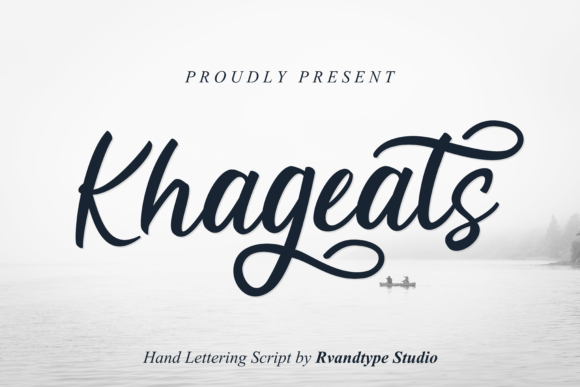
Behold Khageats, the script font that will ignite your creativity and captivate your audience. Its charming and unique style adds a touch of elegance and personality to any design project. With Khageats, you'll have the power to transform ordinary designs into extraordinary masterpieces.
Imagine your designs adorned with the beauty of Khageats, captivating every viewer's attention. Your posters will become mesmerizing, your invitations unforgettable, and your branding materials will leave a lasting impression. Unleash your creativity and let Khageats take you on a journey of design excellence.
Every curve and stroke of Khageats is a testament to its meticulous craftsmanship. The letters dance across the page, creating a visual symphony that draws the eye and stirs the emotions. Whether you're designing a wedding invitation, a logo, or a social media post, Khageats will elevate your message and make it shine.
Dive into the depths of Khageats' diverse character set, where swashes, ligatures, and ornaments intertwine to create endless possibilities. Experiment with different combinations to craft unique and captivating headlines, logos, and designs. With Khageats, your creativity has no bounds.